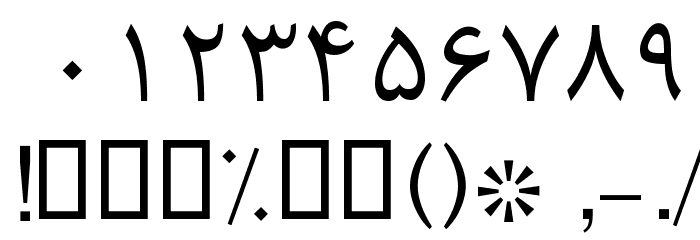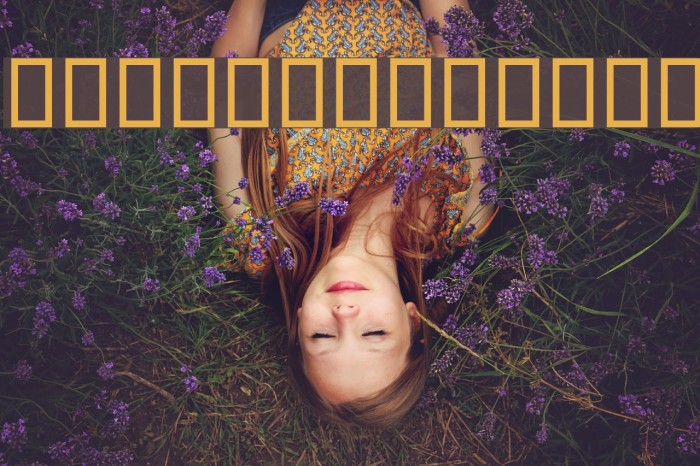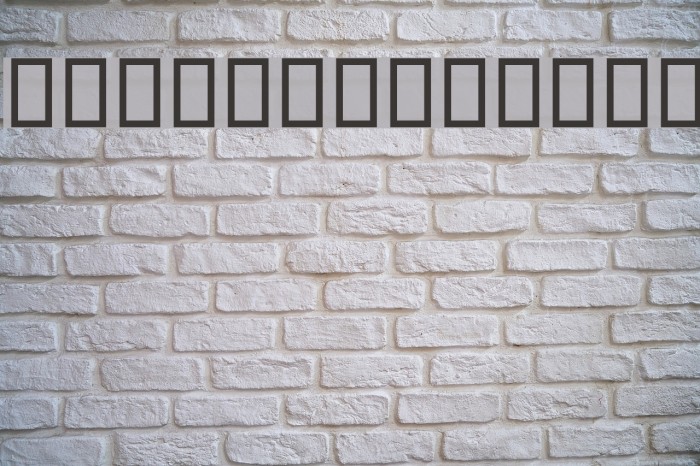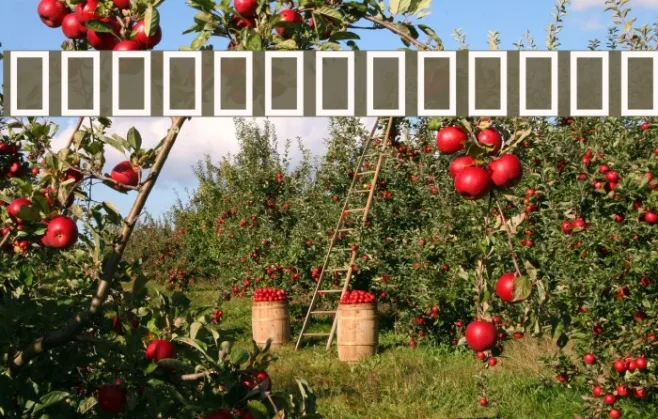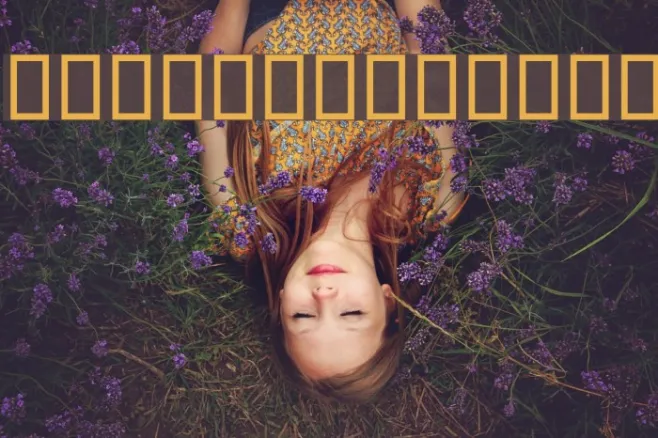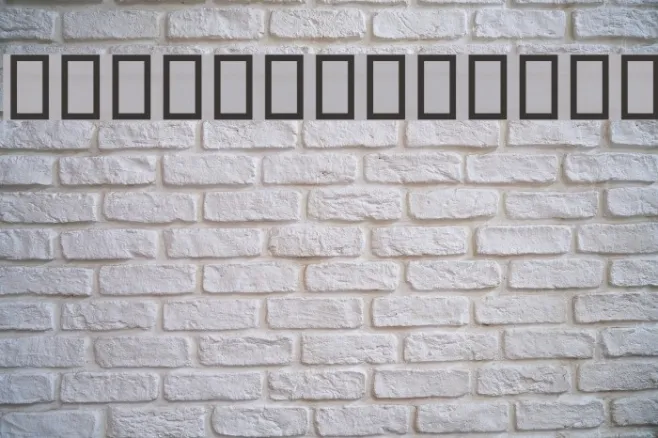
Royaa Font
This font features a unique and artistic design, characterized by its bold and striking appearance. The characters are crafted with a distinct style that combines modern elements with a touch of traditional flair. The numerals and special characters maintain the same boldness, ensuring consistency across all elements. This font is ideal for projects that require a strong visual impact and a sense of creativity.
A bold and artistic font with a modern yet traditional flair.